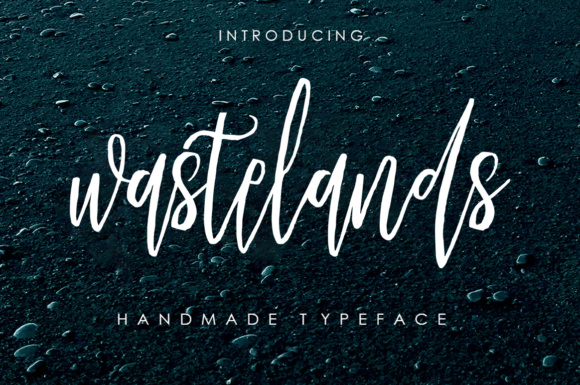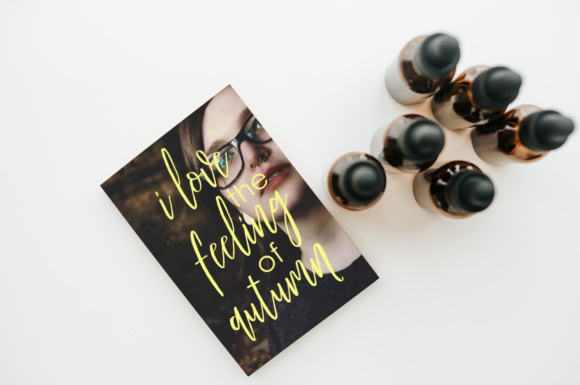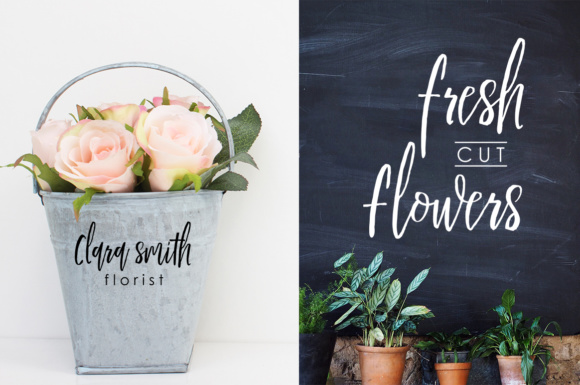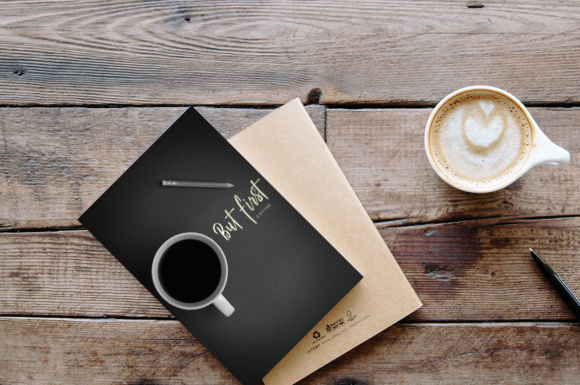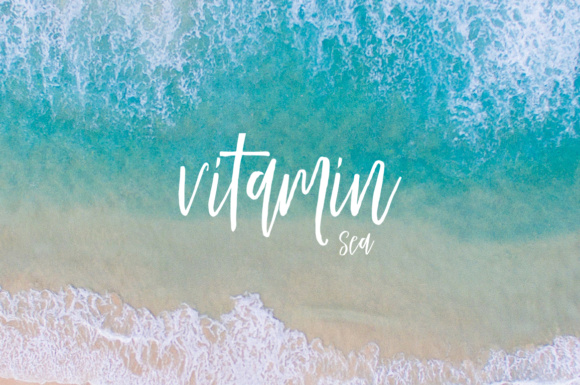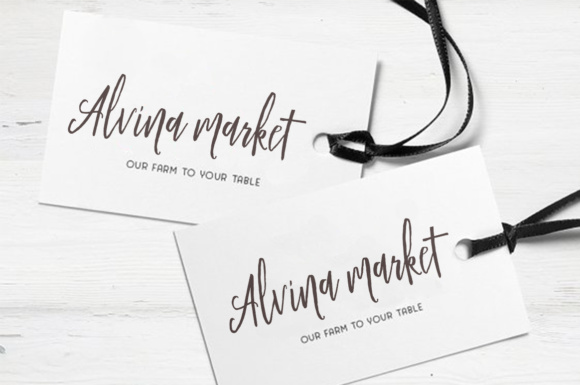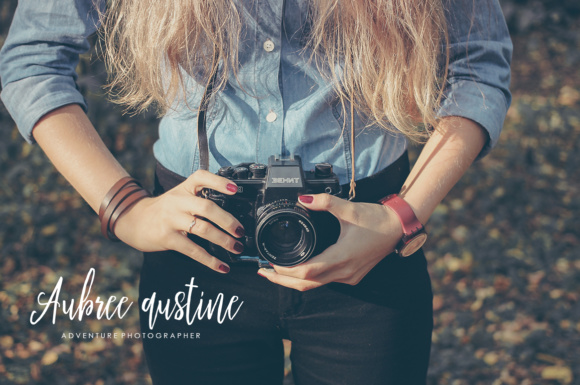
Wastelands Font
About Wastelands Font
Wastelands is a tall, condensed script font that will give your projects a stunning look; this hand-crafted calligraphy font looks at home in modern designs, and can add a ton of elegance and style in minimal and thoughtful project types.